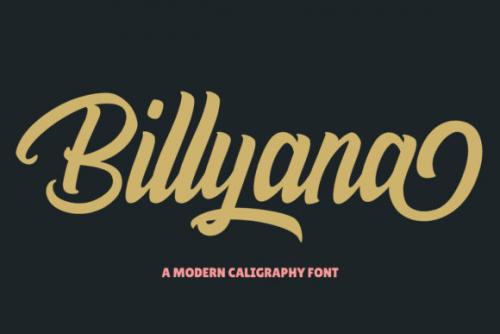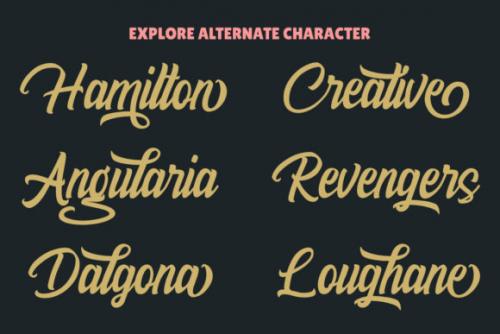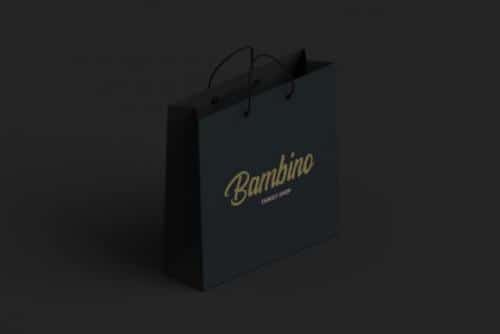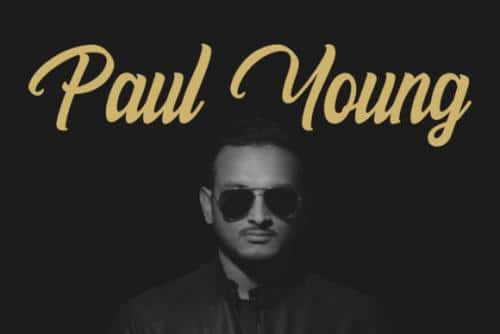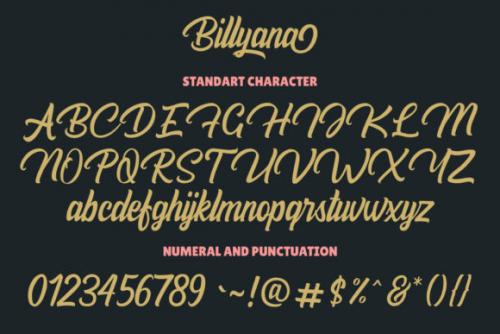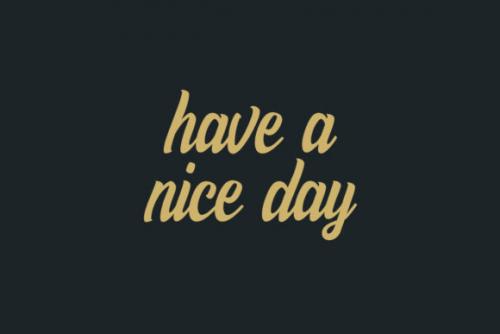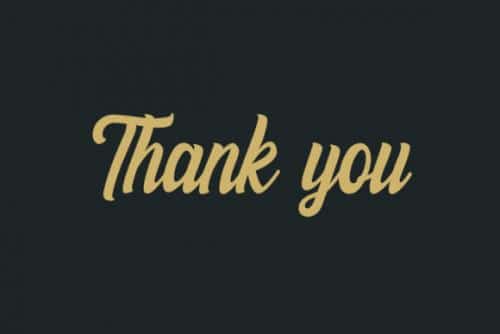
Billyana is a modern and flowing handwritten font, designed with the help of a brush pen. This font is PUA encoded which means you can access all of the glyphs and swashes with ease!
It features a varying baseline, smooth lines, gorgeous glyphs and stunning alternates.